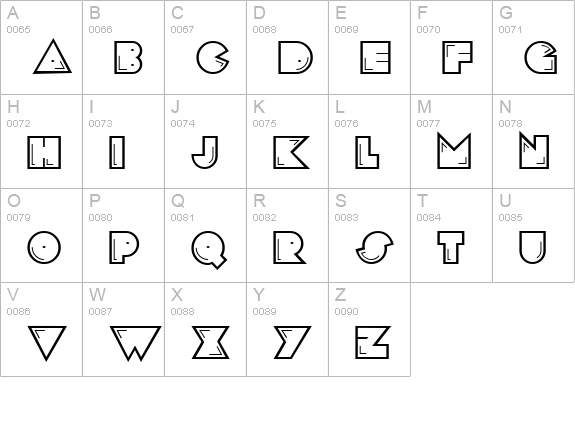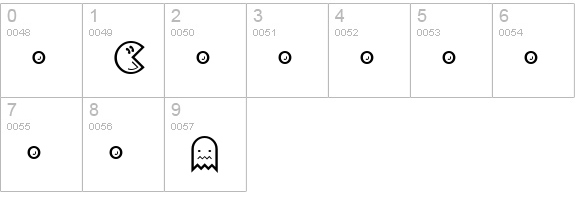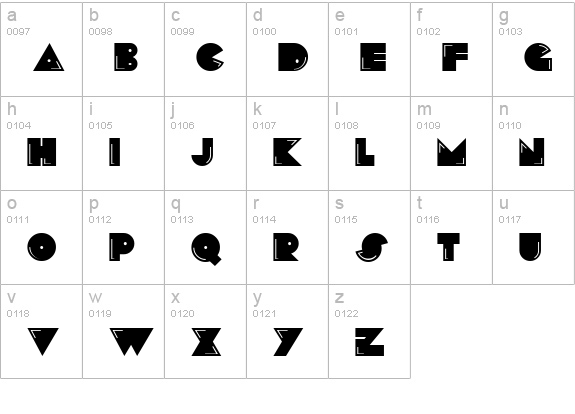
PacFont Good Font Details
Introducing PacFont Good, a sensational font that combines the essence of retro gaming with a modern twist. This remarkable typeface is the perfect choice for those seeking a playful and nostalgic vibe in their designs. With its bold and chunky letterforms, PacFont Good effortlessly captures the spirit of arcade classics, making it an absolute must-have for gamers, designers, and typography enthusiasts alike. What makes PacFont Good truly exceptional is not only its captivating style but also its accessibility. This incredible font is available for free, allowing anyone to effortlessly add a touch of retro charm to their projects without breaking the bank. Whether you're working on a logo, poster, gaming website, or even a personal project, PacFont Good is here to elevate your designs to new levels of creativity and excitement. To make it even more convenient, PacFont Good is readily available to download at FontsMarket.com. This reliable platform offers a vast collection of high-quality fonts, and PacFont Good is one of their shining stars. So, don't hesitate to visit FontsMarket.com and get your hands on this remarkable font, completely free of charge. Embrace the nostalgia, relive the excitement, and let PacFont Good transport you to the thrilling world of classic gaming. With its effortlessly cool aesthetic and its accessibility, this font is truly a game-changer. So, unleash your creativity and embark on a typographic adventure with PacFont Good – the free font that is sure to leave a lasting impression.